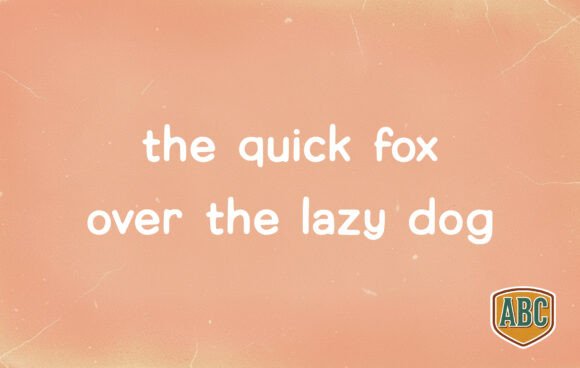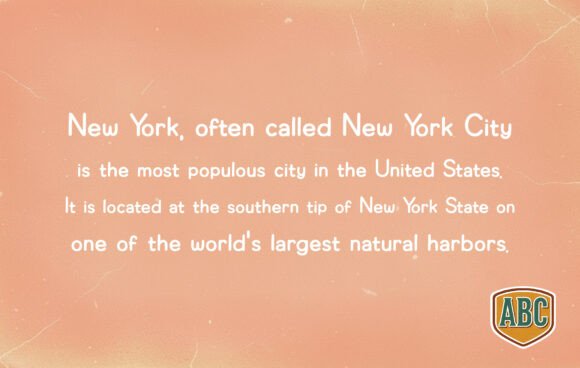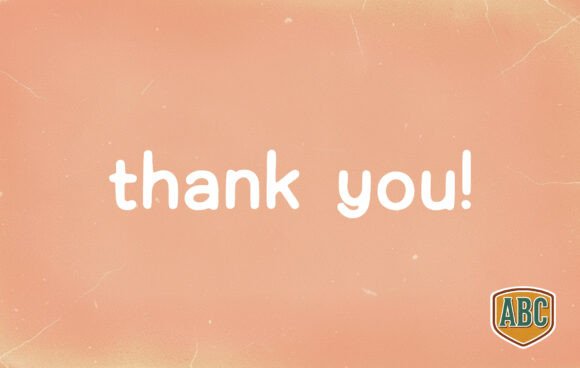
Introduction to Lightsalmon Font
Do you remember the moment when you finally found the perfect font for your creative project? It’s a feeling that’s hard to describe, but it’s like the entire design process clicks into place. For designers, that moment is often elusive, but with the Lightsalmon Font, you might just find yourself experiencing it again and again. This charmingly rounded typeface is a breath of fresh air, offering a perfect balance between playful energy and clean readability.
Whether you’re crafting a boutique menu or a lifestyle blog header, the Lightsalmon Font provides a friendly, approachable vibe that instantly puts your audience at ease. Its soft edges make it an ideal candidate for children’s book illustrations, nursery decor, or eco-friendly product packaging, making it a valuable design resource for creatives.
Key Features of Lightsalmon Font
- Unique characteristics include a blend of clean lines, geometric shapes, and subtle texture, making it perfect for branding, logos, and typography-based designs.
- Supports a wide range of languages, including Latin, Cyrillic, and Greek, making it a versatile design resource for global projects.
Honest Review: Lightsalmon Font
I recently stumbled upon the Lightsalmon Font while searching for a unique design resource for my next creative project. Initially, I was drawn to its playful, handwritten feel, which I thought would be perfect for a children’s book design.
- Perfect for creative projects that require a touch of whimsy and personality
- The font doesn’t support as many languages as I would have liked
- The font may not be suitable for formal or professional designs, as it has a more casual feel
Overall, I’m impressed with the Lightsalmon Font’s unique charm and potential for creative projects. While it may have some limitations, I think it’s a great addition to any designer’s toolkit. Just be aware of its limitations before using it for more formal designs. ✨⚠️
Tips for Getting the Most Out of Lightsalmon Font
For optimal results, use Lightsalmon Font with a transparent background to create a clean and modern design. Experiment with different font sizes and styles to achieve the desired effect.
Lightsalmon Font is perfect for:
- Creating elegant invitations and event materials.
- Designing high-end branding materials, such as logos and business cards.
- Adding a touch of sophistication to digital products, like ebooks and presentations.